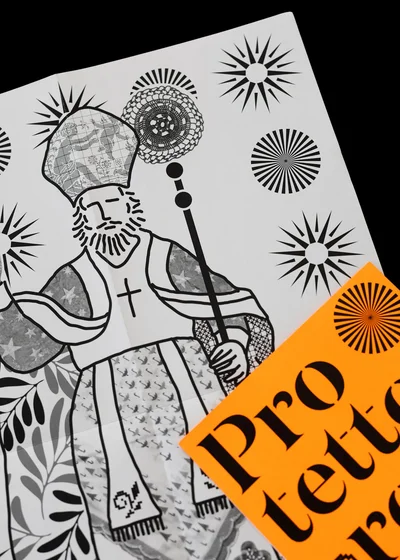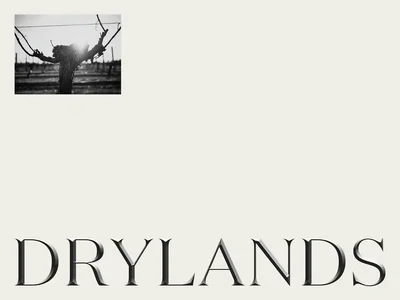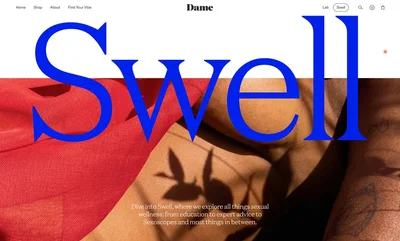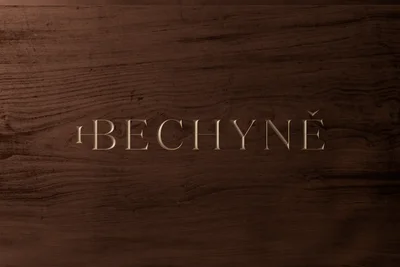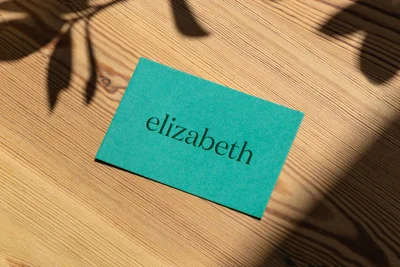
Domaine vs Recife
Domaine and Recife are both serif typefaces sharing a modern foundation. Where Domaine leans luxurious, Recife brings display, bold. Compare which suits your Editorial project.
| Feature | Domaine | Recife |
| Source | Klim Type Foundry | DSType |
Recommended: Domaine
- luxurious design character
- Suited for Luxury and Fashion
Consider: Recife
- display, bold design character
- Suited for Display and Headlines